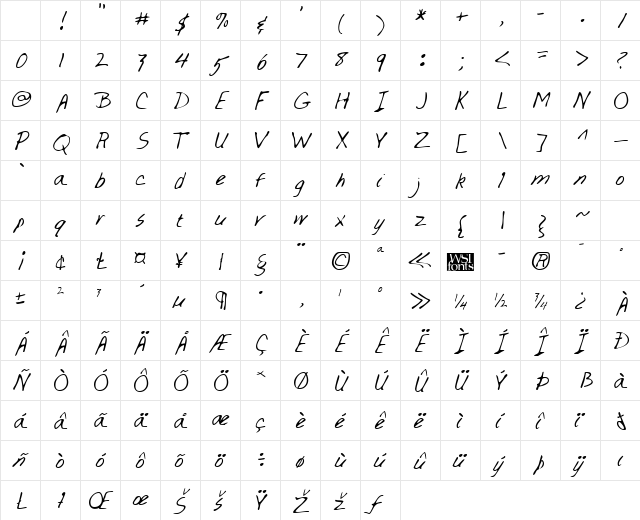
TaylorsHand Regular
Design Context for TaylorsHand
TaylorsHand flows with the natural rhythm of handwritten lettering, making it ideal for designs that call for warmth and personal expression.
Font Pairing: Combine TaylorsHand with a simple geometric sans for maximum contrast - the tension between flowing curves and clean structure is a classic typographic pairing.
Pro Tip: Use TaylorsHand for short runs of text - names, titles, or taglines. Extended body copy in script faces tires the eye quickly.